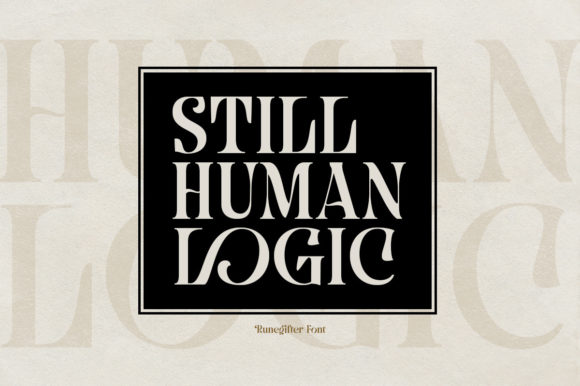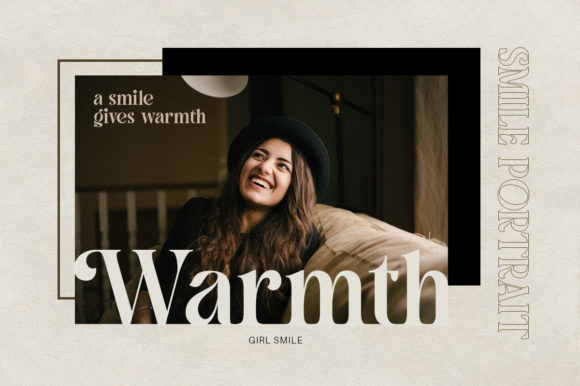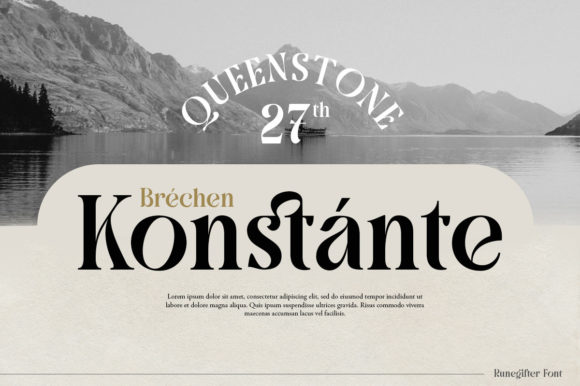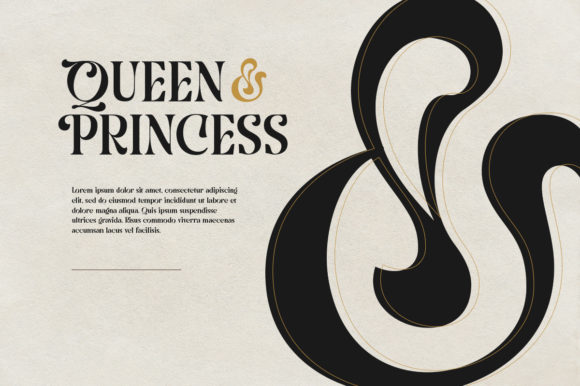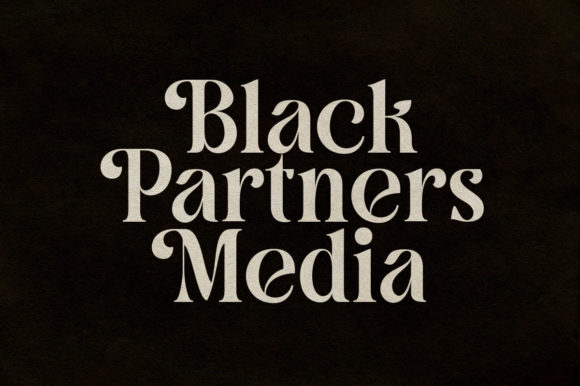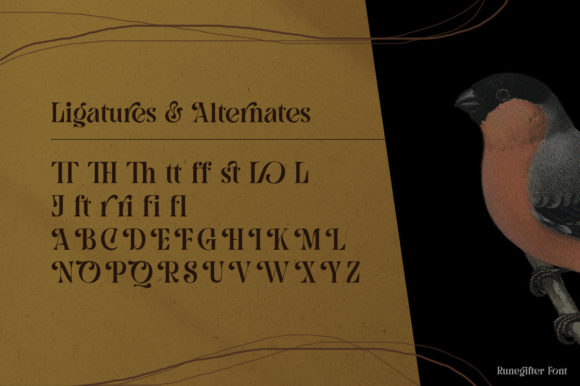
Introduction to Rune Gifter Font Font
Fonts play a crucial role in design, and the Rune Gifter Font font is a typeface that brings both character and versatility to any project. Whether you’re working on a branding project, a website, or a print design, the Rune Gifter Font font offers a unique style that can elevate your work.
Rune Gifter is a bold, modern and cool serif font.
It is defined by smooth curves and is perfect for fashion branding or editorial designs Add it confidently to your projects, and you will love the results.
Key Features of Rune Gifter Font Font
Why Choose Rune Gifter Font Font?
The Rune Gifter Font font is more than just a typeface – it’s a design tool that helps you communicate your message with style and clarity. Its unique character set and versatile design make it suitable for a wide range of applications, from elegant invitations to bold headlines.
With its carefully crafted letterforms and balanced proportions, the Rune Gifter Font font ensures readability and visual appeal across all mediums.
What makes Rune Gifter Font font special?
The Rune Gifter Font font stands out with its unique design, exceptional readability, and versatility across various design applications.